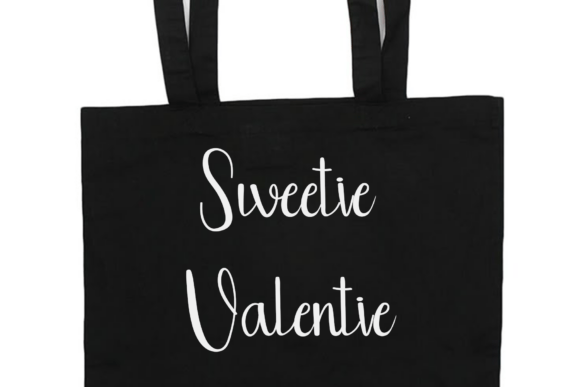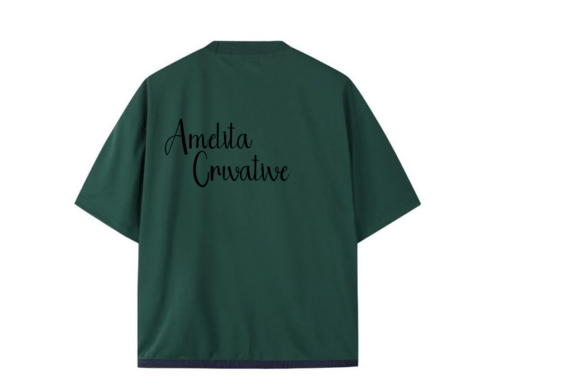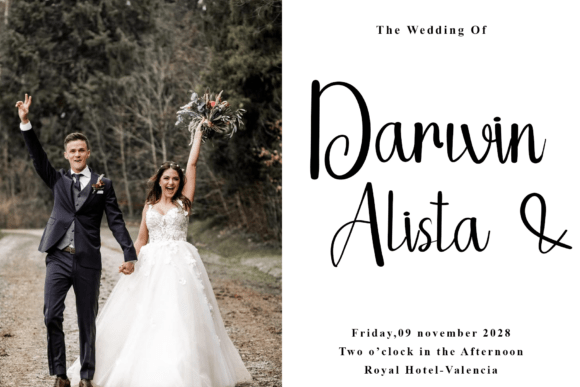
Introduction to Jump Font
Jump is a playful and modern handwritten font that radiates warmth and creativity.
With its tall, rounded letterforms and friendly vibe, this font is perfect for uplifting quotes, social media posts, branding, and DIY projects It brings a casual charm that feels both personal and professional — ideal for adding a bright, joyful touch to any design.
Key Features of Jump Font
Why Choose Jump Font?
Jump Font offers exceptional quality and versatility, making it a valuable addition to your design toolkit. Whether you’re creating for personal projects or commercial use, Jump Font delivers professional results.